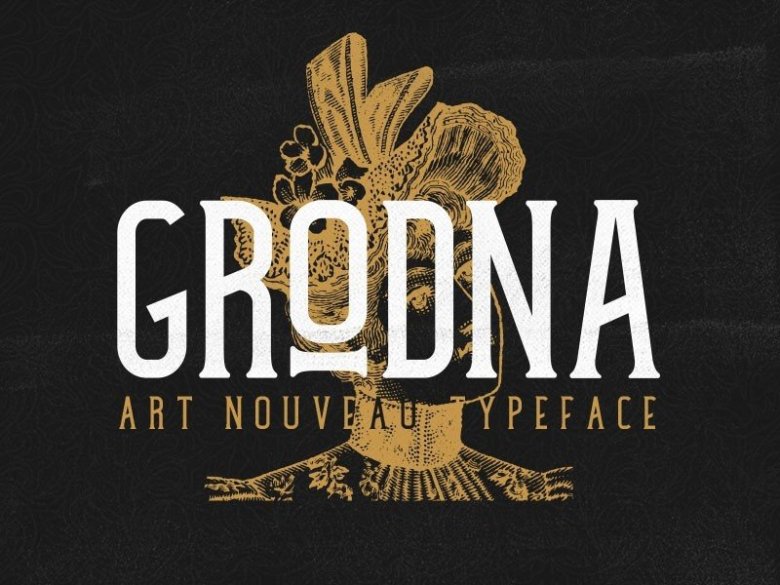
Grodna Vintage Font
Say Hello Guy’s. Thank you for looking Grodna Font. Introducing vintage serif font, awesome vintage style! Create your own vintage style – Just install all this font files and create your own stuff. Grodna Vintage is a font inspired by the posters used in the beginning of the 1900`s in Oradea, which is considered to be the Center of art Nouveau .It is a tall, condensed sherif font with sharp brackets, short arms with a slight curve at the end. The bars are at a rising angle from left to right, and it has a straight spine with 90 degree turns. The weight of the lines does not vary across the elements, its medium sized everywhere. All this comes together and forms a font with clean and elegant aspect.